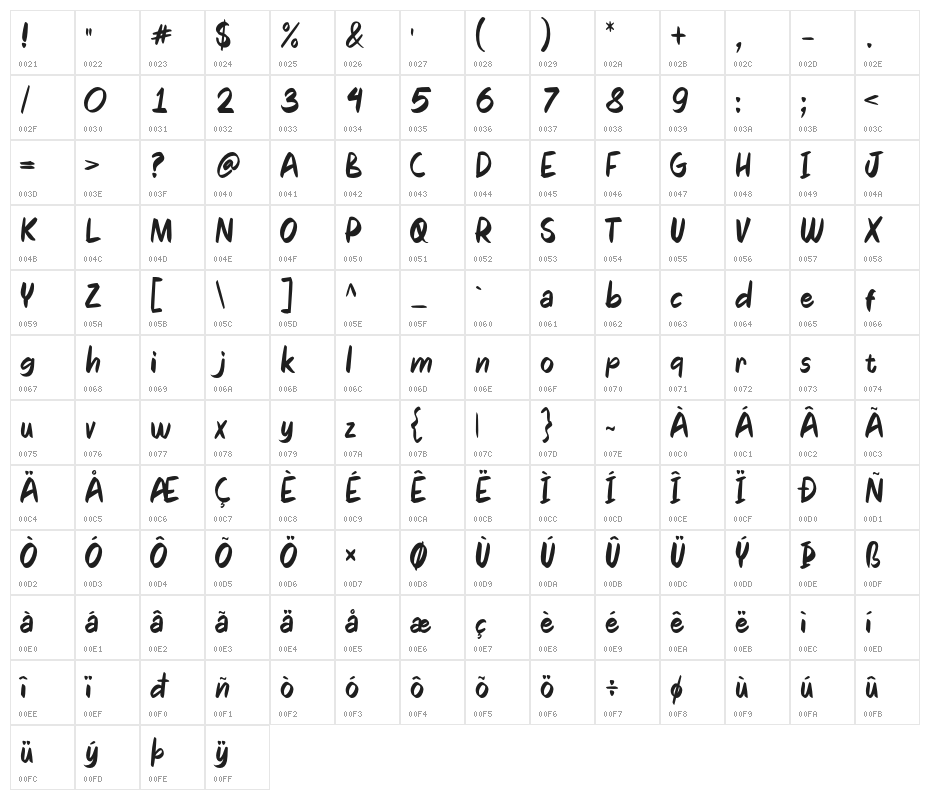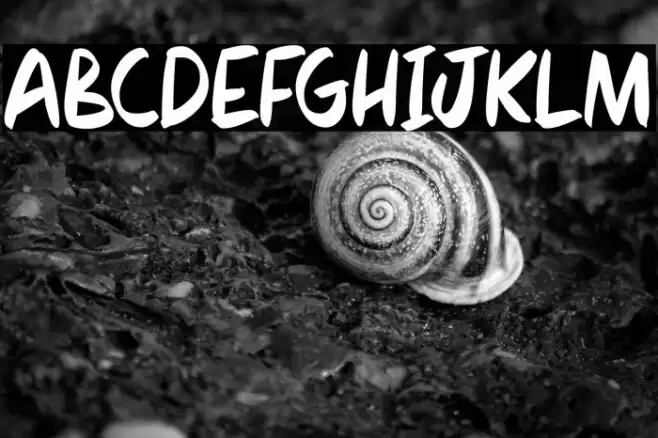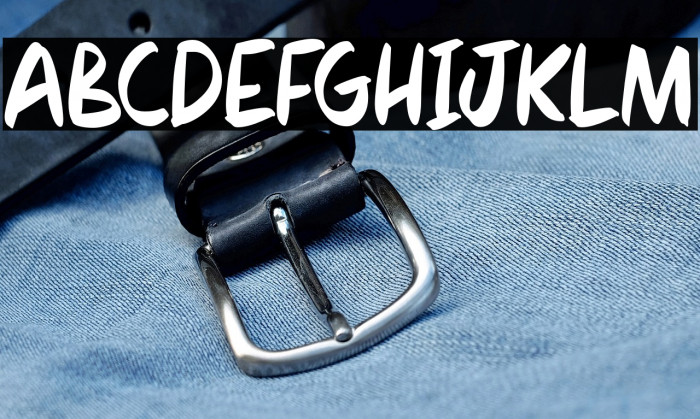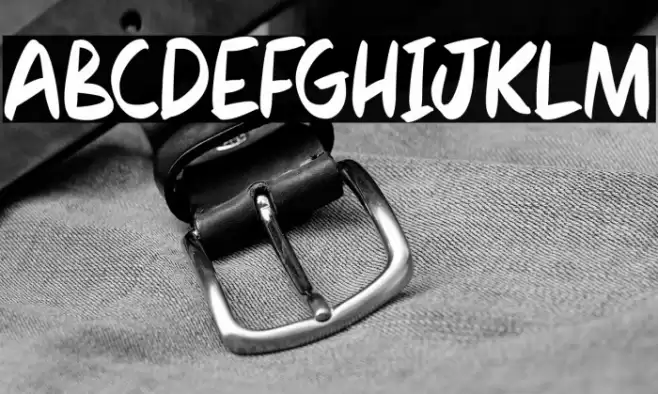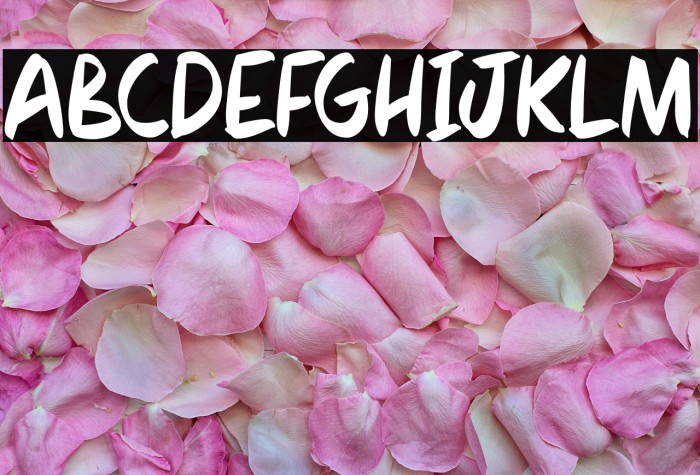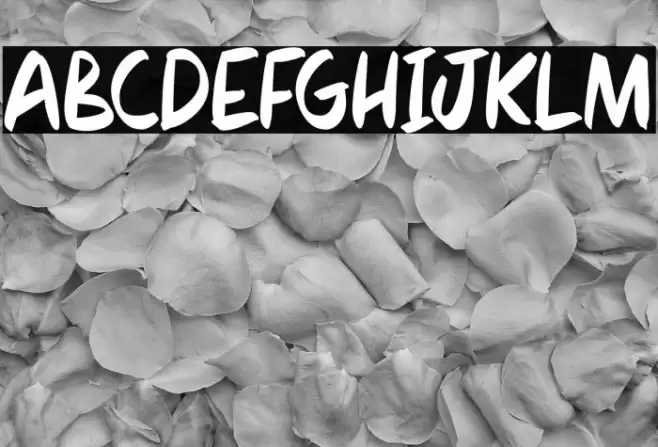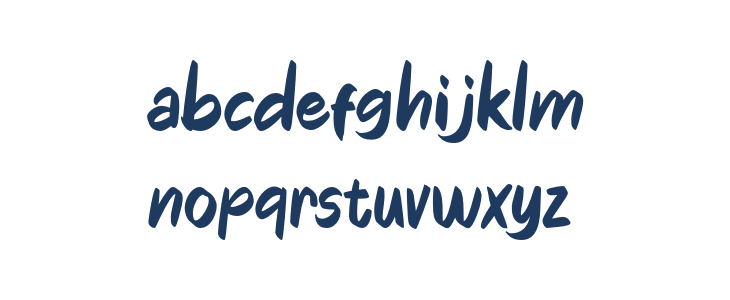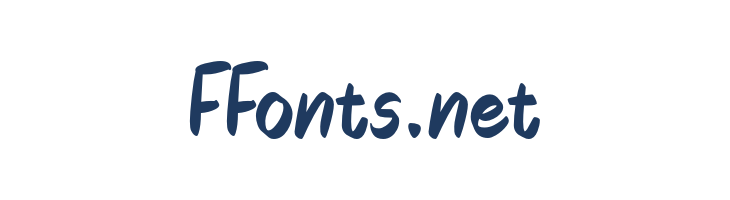
Jorby Font
Jorby Description
This font exudes a playful and energetic vibe with its bold, brush-like strokes. The characters are slightly slanted, giving a sense of motion and fluidity. The uppercase letters are robust and dynamic, while the lowercase letters maintain a consistent style with a touch of casual elegance. Numbers and special characters follow the same lively design, making the font versatile for various uses. The overall appearance is informal yet impactful, suitable for creative and expressive projects.
| Proposed Projects | Ideal for branding, posters, social media graphics, and any project that requires a lively and informal touch. |